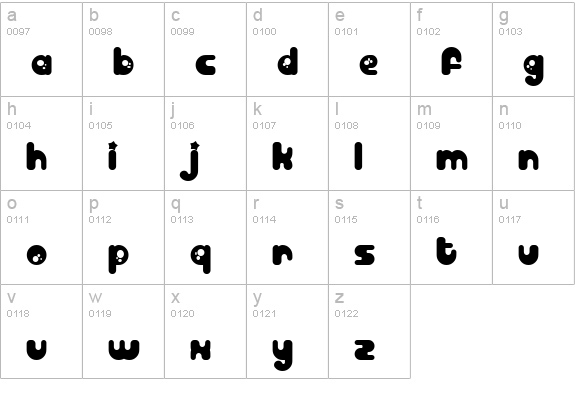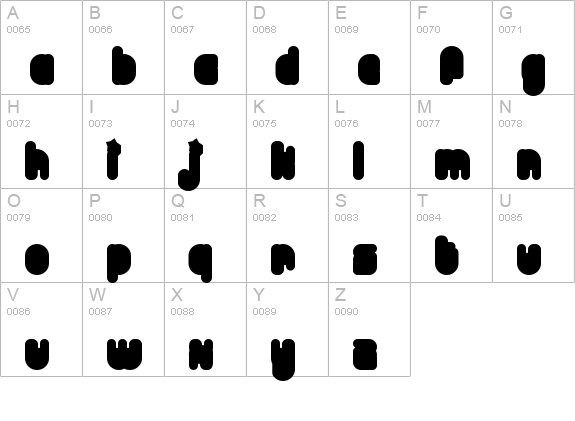
Billo Font Details
Introducing Billo font, a versatile and modern typeface that is sure to make your designs stand out. With its sleek lines and contemporary look, Billo font is perfect for a wide range of projects, from branding to web design and everything in between. This unique font is available for free download exclusively at FontsMarket.com, making it easily accessible for designers looking to add a touch of sophistication to their work. Embrace the creativity and elegance of Billo font today and elevate your design projects to new heights.